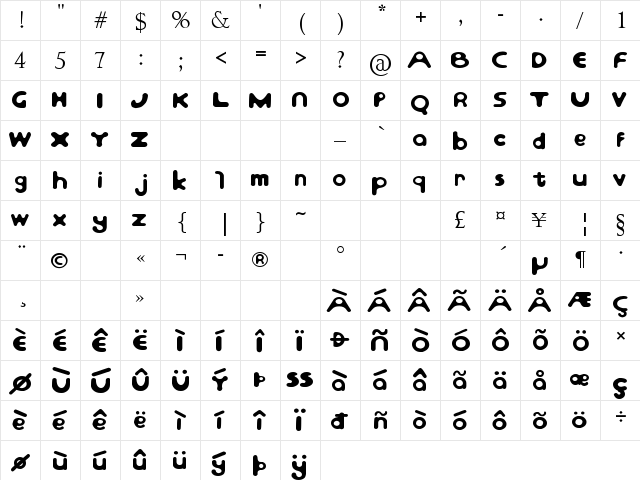
Clucky_Duck Regular
Design Context for Clucky_Duck Typeface
Clucky_Duck is a composed and adaptable typeface that performs quietly and consistently across a wide range of design contexts.
Pro Tip: Use Clucky_Duck in both headline and body roles to test its range before committing to a single application.